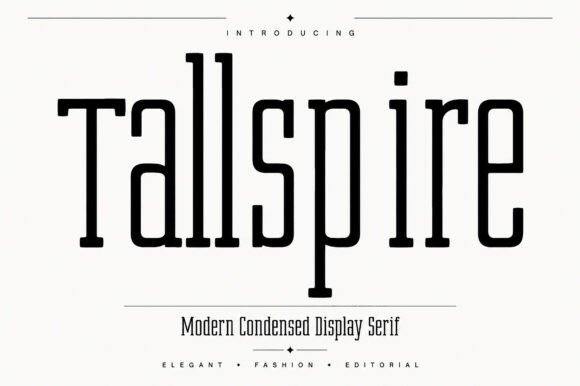
Tallspire Font
Tallspire Font is a sophisticated modern display serif font crafted with tall proportions, elegant curves, and refined details. Designed to make a bold statement, Tallspire combines contemporary minimalism with timeless luxury, making it perfect for fashion branding, editorial layouts, magazine covers, packaging, logos, advertising, posters, and premium product designs.
Its condensed structure creates a strong visual impact while maintaining excellent readability, making it ideal for large headlines, luxury branding projects, and modern creative applications. Whether you’re designing a high-end fashion campaign, a stylish logo, or an elegant editorial spread, Tallspire brings sophistication and character to every project.